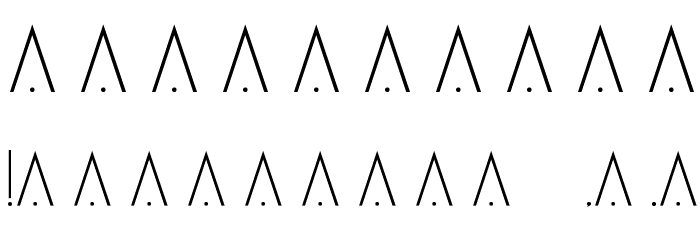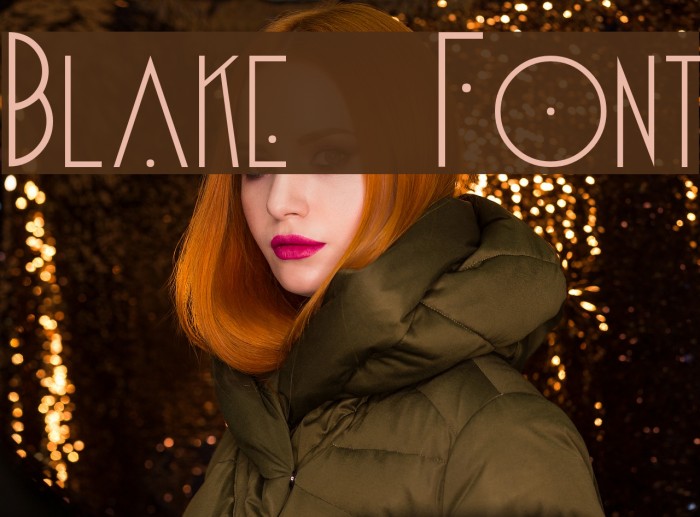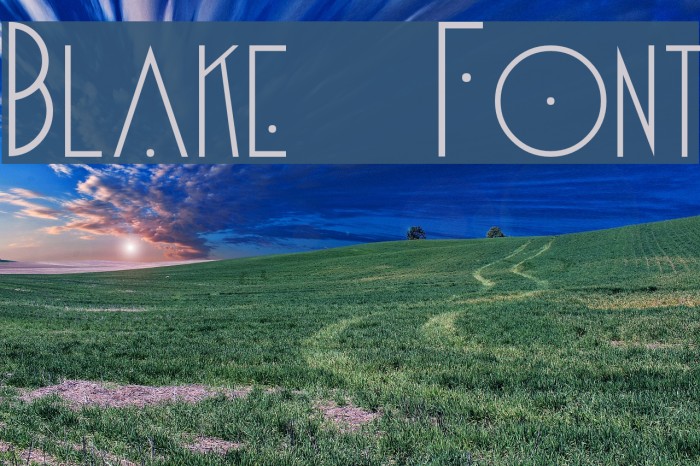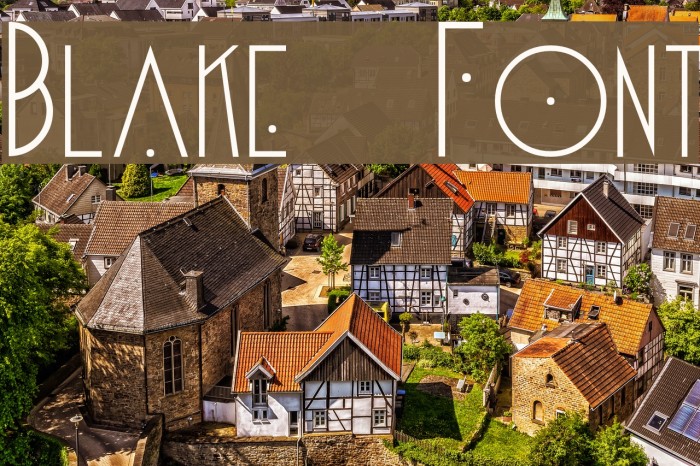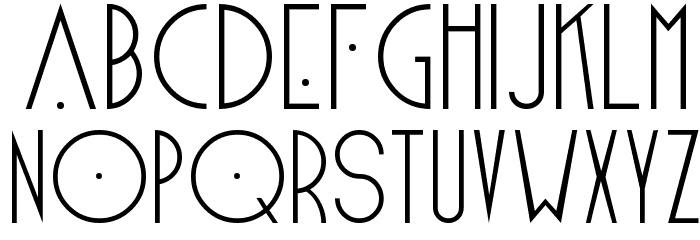
Blake Font
Blake Description
This font features a unique and artistic design with a geometric and minimalist approach. The characters are composed of thin, straight lines with circular elements integrated into the design, creating a modern and futuristic appearance. The uppercase letters are tall and narrow, while the lowercase letters maintain a consistent style, offering a cohesive look. The numbers and special characters follow the same design principles, ensuring uniformity across all glyphs. This font's distinctive style makes it suitable for creative and contemporary projects.
| Width | Condensed |
| Use Case | Logos, Headlines, Posters |
| Proposed Projects | Ideal for branding, logos, posters, and modern digital designs. |